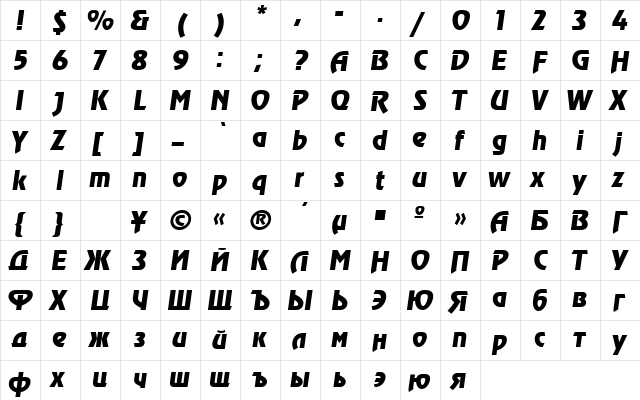
Revue Italic Font Preview
Revue Italic
Design Context for Revue Typeface
Revue takes a measured approach to typography — its balanced proportions and neutral character make it a reliable workhorse for both digital and print work. Its italic angle brings a sense of urgency and motion to the letterforms.
Pro Tip: Use Revue for emphasis, pull quotes, and subheadings where its slanted energy can add rhythm to the layout.